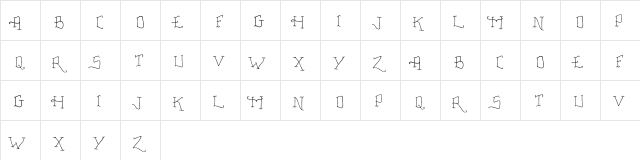
Fancy Tattoo Script Regular
Design Context for Fancy Tattoo Script Typeface
Fancy Tattoo Script brings a calligraphic fluidity to the page — its connecting strokes and expressive curves give it an unmistakably human quality.
Font Pairing: Combine Fancy Tattoo Script with a simple geometric sans for maximum contrast — the tension between flowing curves and clean structure is a classic typographic pairing.
Pro Tip: Use Fancy Tattoo Script for short runs of text — names, titles, or taglines. Extended body copy in script faces tires the eye quickly.